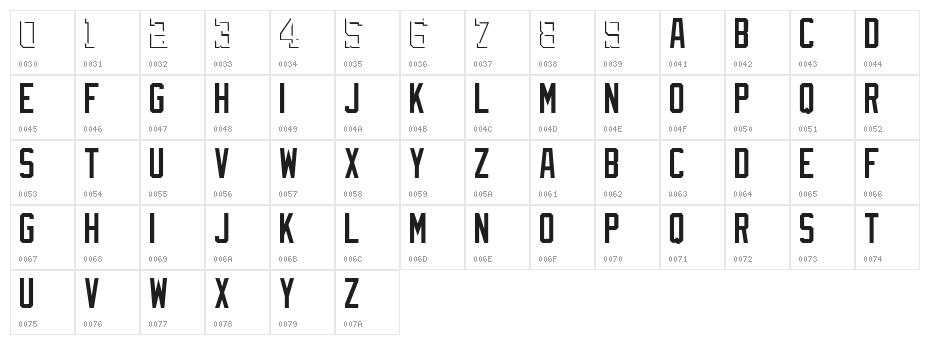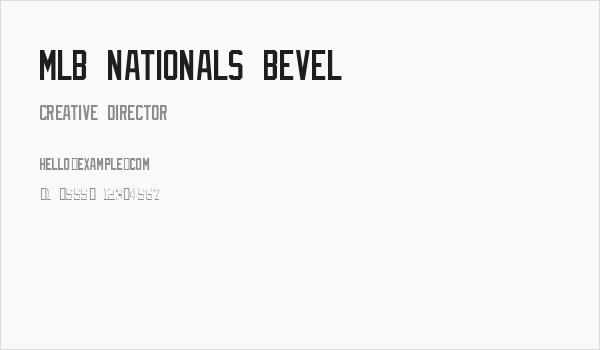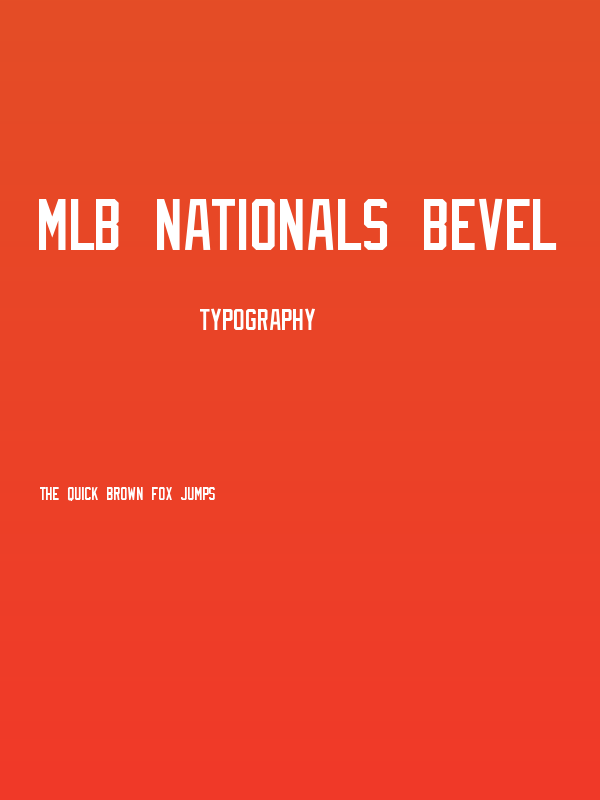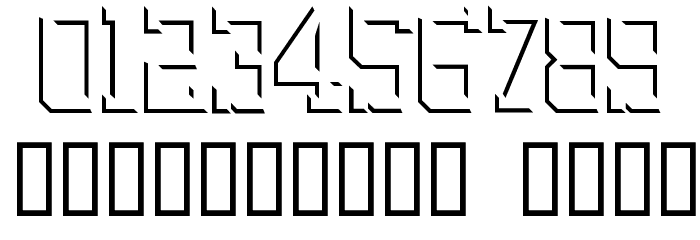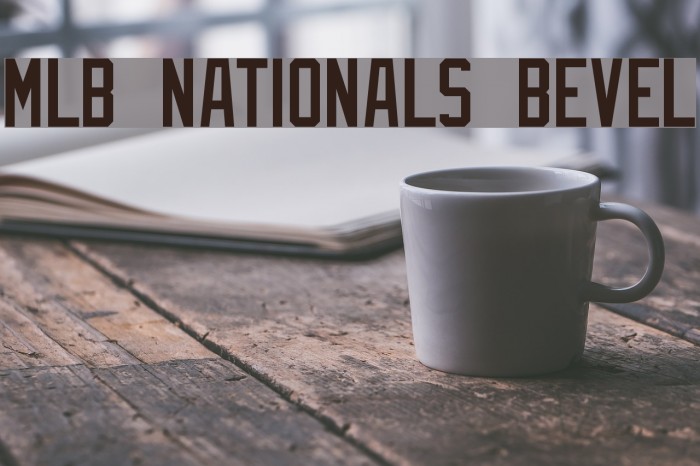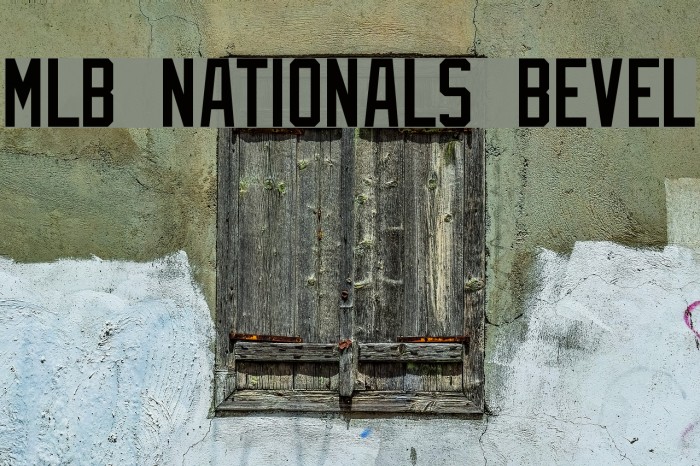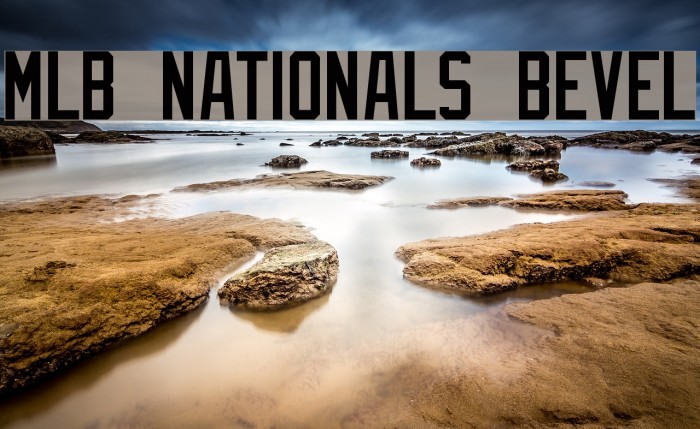
MLB Nationals Bevel Font
MLB Nationals Bevel Description
This font features a bold and angular design with a distinct beveled effect, giving it a three-dimensional appearance. The uppercase letters are prominent and commanding, with sharp edges and a uniform stroke width that conveys strength and stability. The numerals follow the same geometric style, ensuring consistency across all characters. The font's design is reminiscent of sports team logos, making it ideal for applications that require a bold and impactful presence. Its clean lines and structured form make it suitable for various design projects that aim to capture attention and convey a sense of power.
| Use Case | Logos, Headlines |
| Proposed Projects | Ideal for sports branding, team logos, merchandise, and promotional materials. |